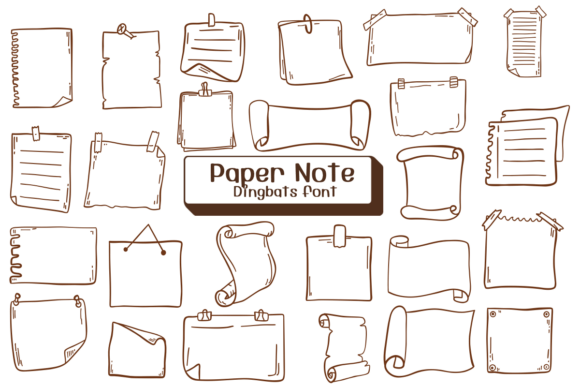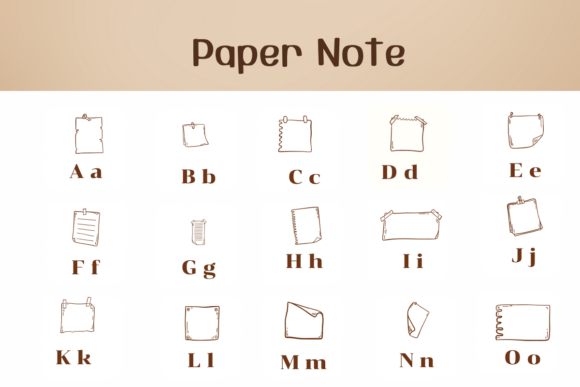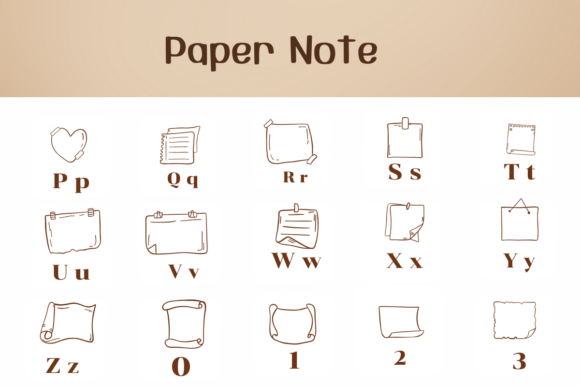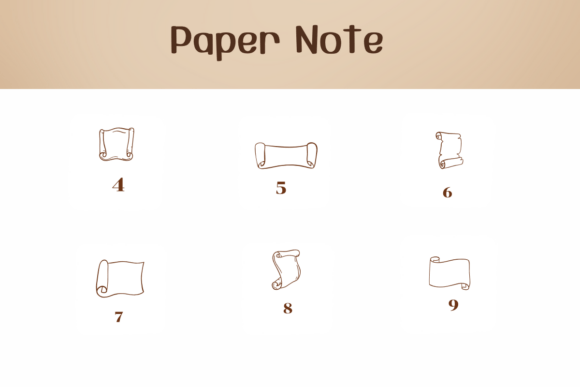
Paper Note Font
About the Paper Note Font
Get ready to be inspired by Paper Note Font, a fresh and dynamic typeface for modern creators. Paper Note is a dingbats font with a sketched style. This font can enhance your creative projects such as wedding invitations, DIY, crafts, decorations, logos, and many other creative ideas.
Paper Note’s sketched style lends itself perfectly to projects requiring a handcrafted, informal feel. It excels in headlines, logos, short text blocks on packaging, and social media graphics. Avoid using it for body text or large blocks of information; its informal nature makes it less legible for extended reading.
Its playful yet approachable personality pairs well with clean sans-serif fonts like Open Sans for a balanced contrast, or a more refined serif such as Merriweather for a touch of elegance. For a bolder statement, consider pairing it with a geometric sans-serif like Montserrat.
The overall aesthetic is best suited for brands aiming for a friendly, approachable, and slightly whimsical image; think handmade goods, craft businesses, or children’s products.
Paper Note Font Usage Examples
Paper Note Font Example